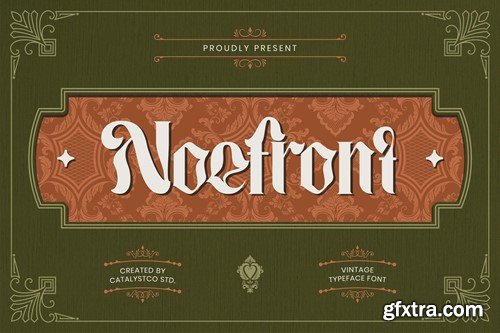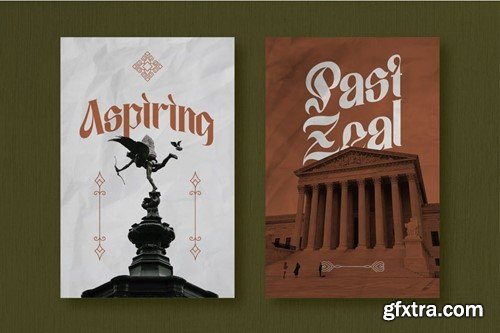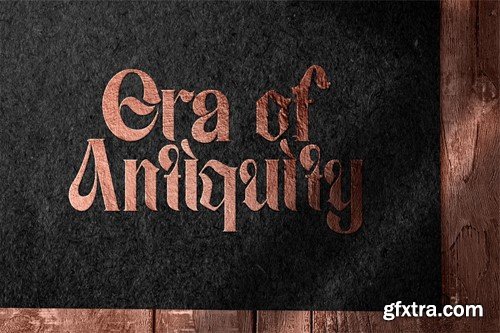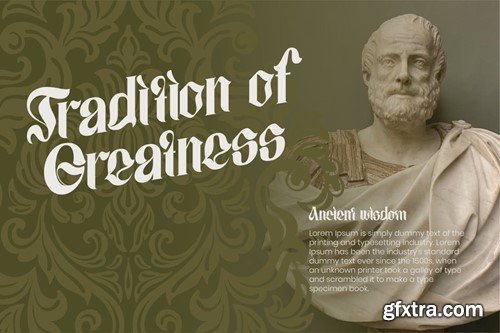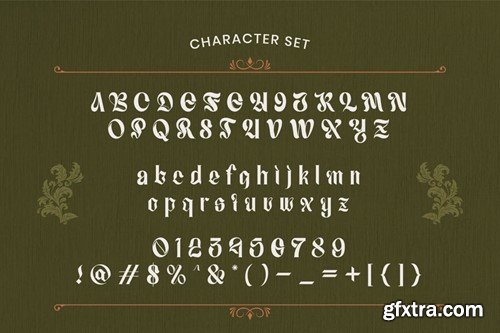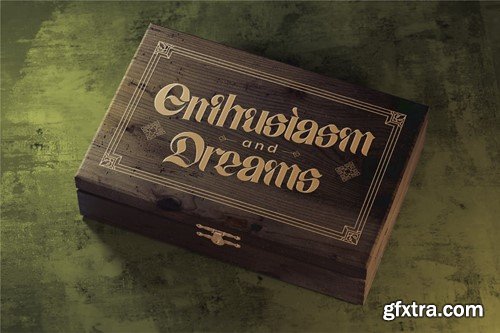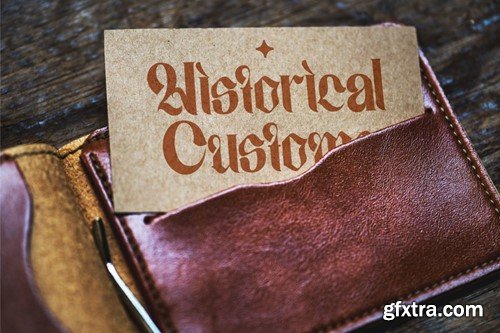
Noefront Vintage Typeface Font VBH6FMG
Noefront Vintage Typeface Font
Noefront Vintage Typeface Font typeface excellent used for the manufacture quote text, logotype, header magazine, and many more.
• Ligatures & Alternate